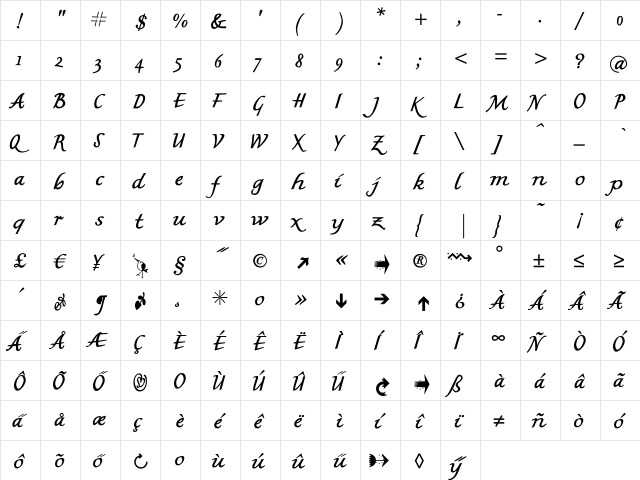
MKBritishWriting Regular
Design Context for MKBritishWriting Typeface
MKBritishWriting is a composed and adaptable typeface that performs quietly and consistently across a wide range of design contexts.